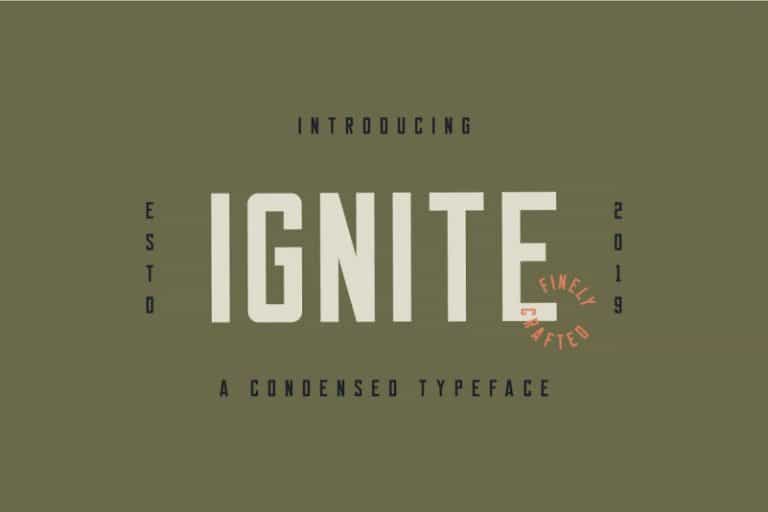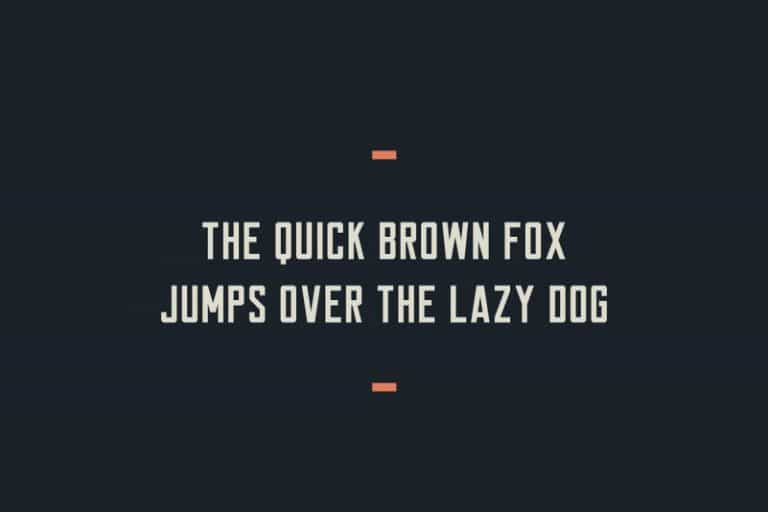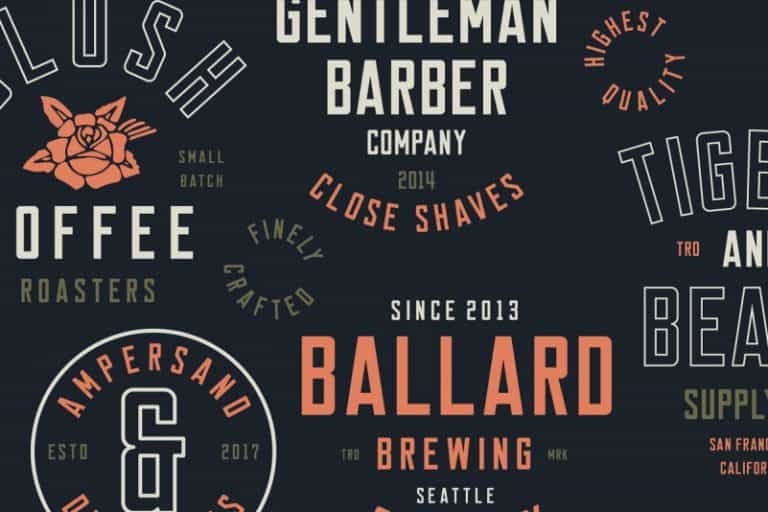
Hello friend. Introducing Ignite Font. Ignite is a simple, compressed typeface that was made keeping in mind the vintage lettering textbooks. It is a great tool for the modern and handcrafted look of your designs. Ignite is ideal for branding, logos, magazines, films, website headlines and titles. posters t-shirts games apps captions etc. .